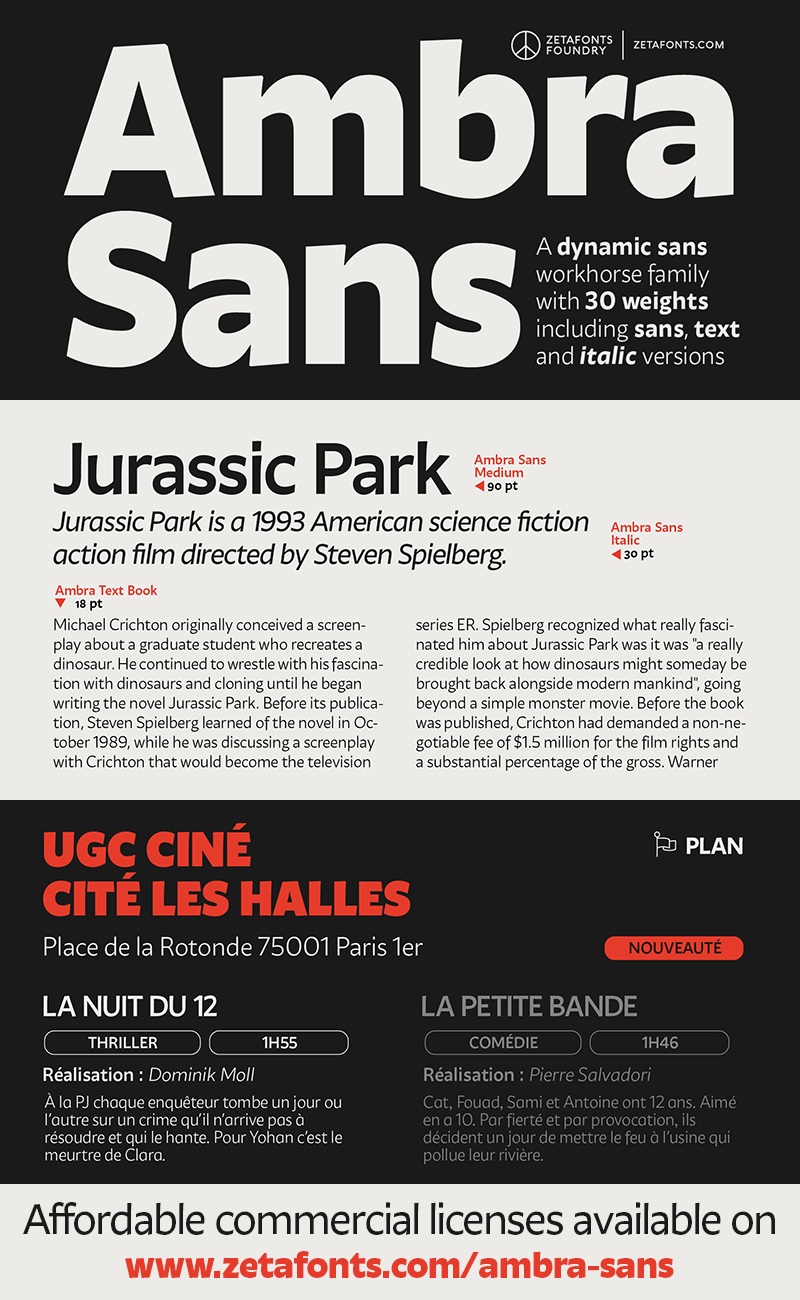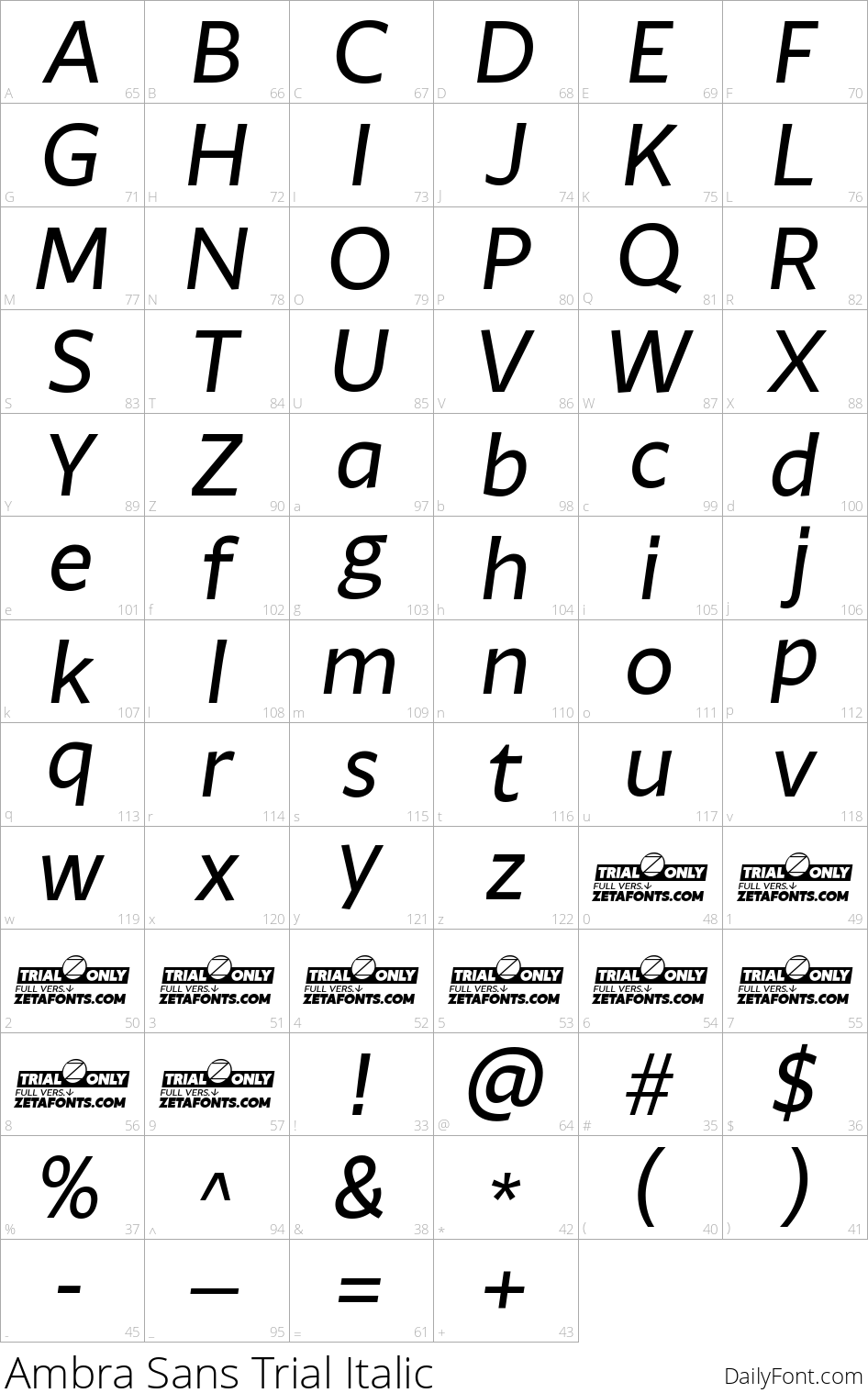
Ambra Sans
Seeking a modern sans-serif font with a touch of humanism and expressive flair? Look no further than Ambra Sans! This versatile typeface is designed to evoke the natural, handwritten feel of traditional humanist letterforms while still delivering the technical capabilities you need in the digital age.
Ambra Sans boasts two distinct subfamilies: Display and Text. The Display family excels at headings and large-scale use, with a taller x-height and optimized spacing for maximum readability. Meanwhile, the Text family is perfect for body text, featuring a smaller x-height and more traditional proportions to ensure crisp rendering on screens.
With seven weights and corresponding true italics, as well as an extra-heavy weight in the Display family, Ambra Sans offers unparalleled versatility. The total family of 30 fonts features over 600 glyphs, covering a wide range of languages for seamless global deployment.
OpenType features and glyph alternates further enrich the possibilities of this font, allowing you to craft unique designs that blend the best of modern sans-serif typography with the expressiveness of handmade calligraphy.